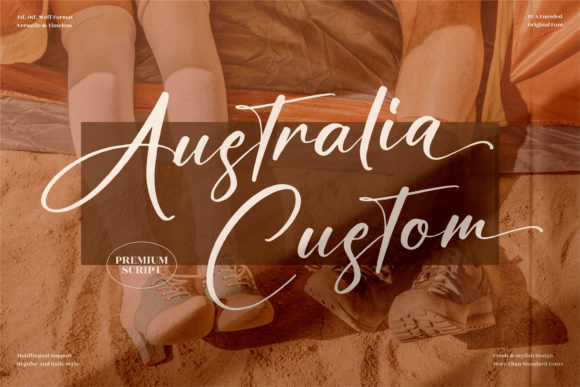
The Perfect Font for Your Creative Projects: Australia Custom
Have you ever been working on a design project, and suddenly, you just can’t seem to find the right font? I know I have! It was a similar situation when I stumbled upon Australia Custom, a lovely script font that has quickly become a favorite in my design arsenal. In this article, I’ll share my experience with Australia Custom, its features, and how to make the most of it in your creative projects.
A Design Moment of Frustration
I recall working on a branding project for a children’s play center. The client wanted a playful, yet elegant feel that would appeal to both kids and adults. As I scrolled through my font library, nothing seemed quite right. That’s when I discovered Australia Custom. Its charming, playful characters seemed to dance along the baseline, and I knew I had found the perfect fit.
An Honest Review of Australia Custom
So, what do I love about Australia Custom? Here are a few things that make it stand out:
- ✨ PUA encoded: This means you can access all the glyphs and swashes with ease, making it a breeze to customize your text.
- ✅ Playful and elegant: The font’s charming characters strike the perfect balance between playfulness and sophistication.
- 💫 Highly versatile: Australia Custom can be used for a wide range of projects, from branding and advertising to crafting and DIY projects.
While Australia Custom is an excellent font, there are a few small quirks to be aware of:
- 🤔 Some characters may require manual kerning: As with any script font, you may need to adjust the kerning to achieve the perfect look.
- ⚠️ Limited use in very small sizes: Due to its intricate design, Australia Custom may not be the best choice for very small font sizes.
The Designer Inspiration Behind Australia Custom
While the true story behind Australia Custom’s creation is unknown, it’s easy to imagine that the designer was inspired by the carefree spirit of Australia’s beaches and outdoor lifestyle. The font’s playful, dancing characters evoke a sense of joy and freedom, making it perfect for creative projects that require a touch of whimsy.
| What is PUA encoding? | PUA (Private Use Area) encoding allows font creators to include custom glyphs and swashes that can be accessed easily. |
| Is Australia Custom suitable for body text? | While Australia Custom is a beautiful font, it’s best suited for headings, titles, and short paragraphs. For body text, a clearer font may be more suitable. |